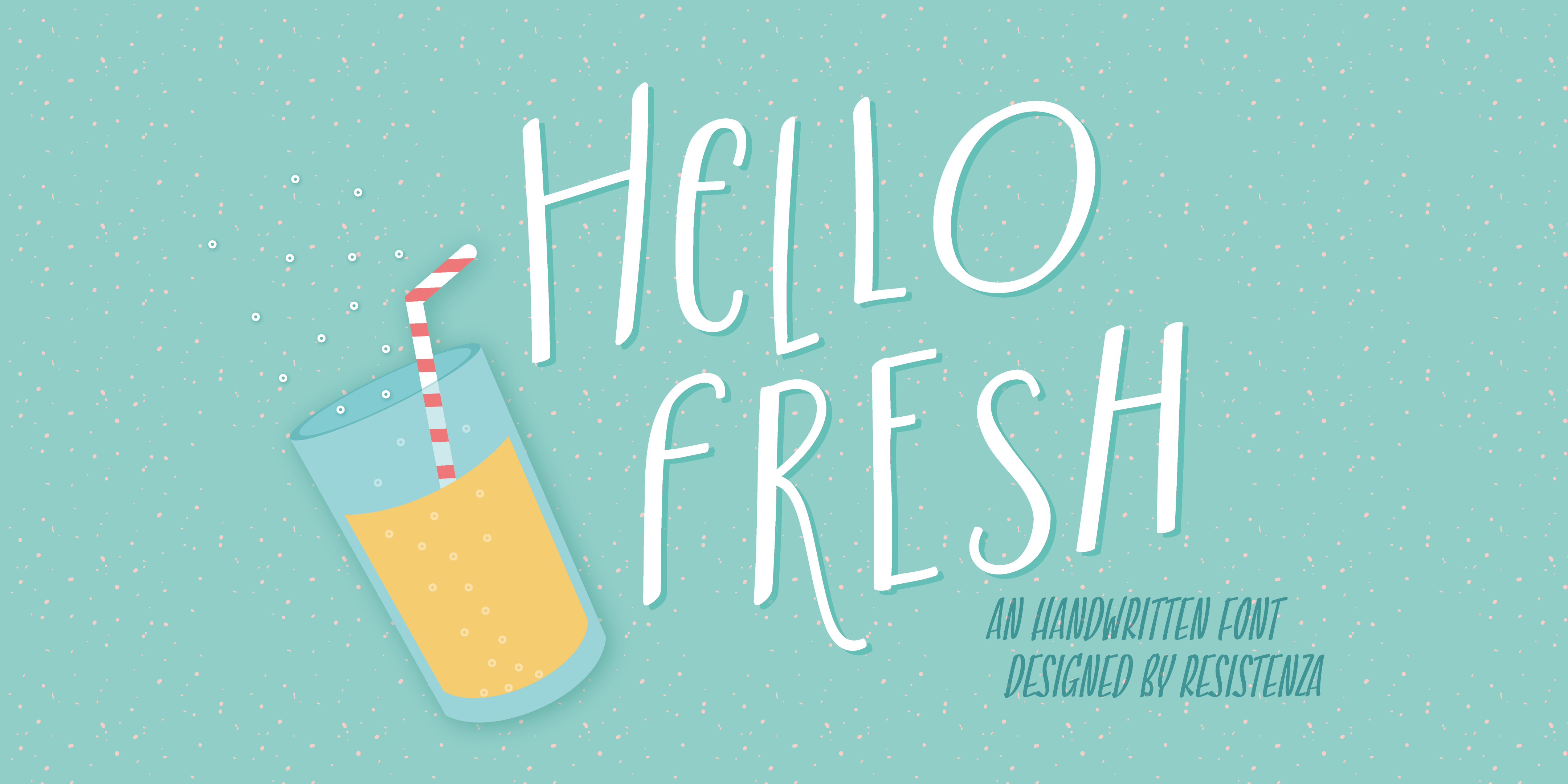
Hello Fresh
Casual hand-drawn bouncing font
Designed by Resistenza Type Foundry
Fresh is best! Say hello to this playful and bouncing font designed by Resistenza. This all-caps have been specially created to add a lively mood to your graphics.
Including 2 sets of letters on each font (uppercase & lowercase), so you can choose an alternate for each glyph just using your keyboard or the opentype glyphs panel on Indesign, illustrator and other apps with opentype features.
Have fun with this friendly font family and give a whimsical touch to your projects. You’ll be able to create catchy quotes combining these all-caps fonts or you can use them individually.
Perfect for headlines, posters, DIY hand-lettered artwork, T-shirts, labels, packaging, fashion supplies, food products, books, holiday cards, wrapping paper, invitations, artisanal goods, and an endless array of options.